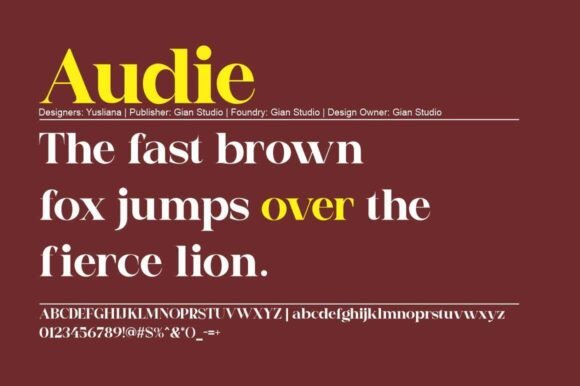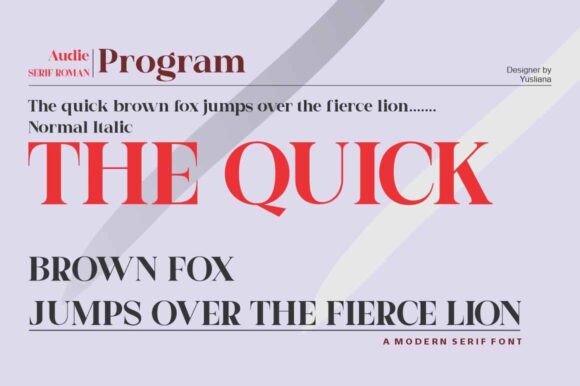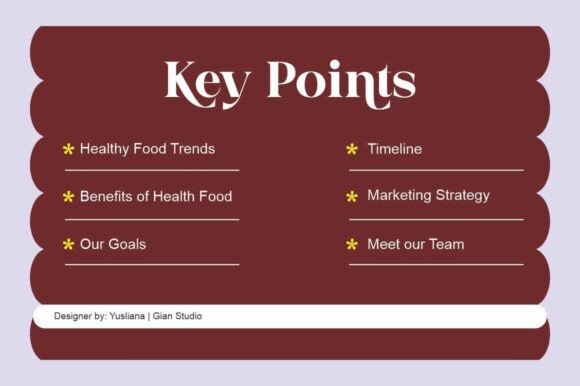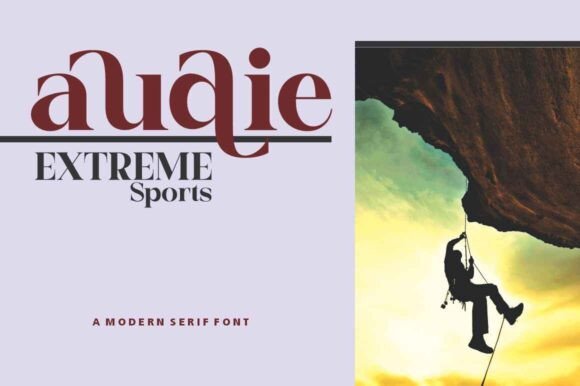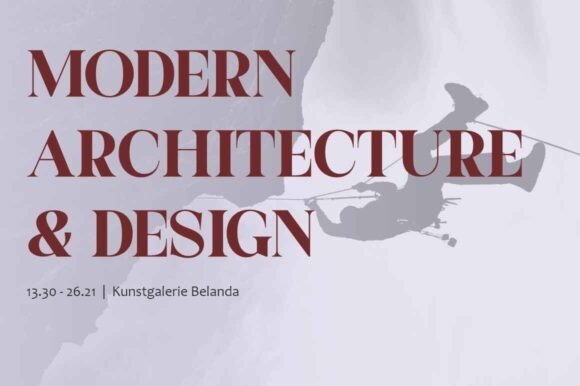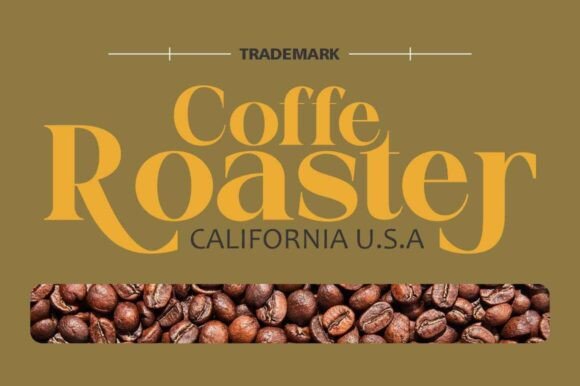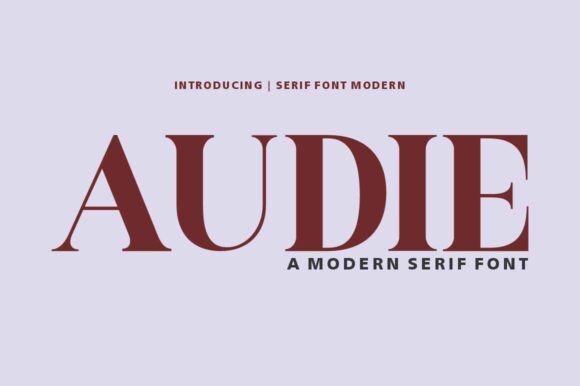
Audie Font: Elevate Your Designs with a Modern Serif Style
In the world of typography, a good font can make all the difference in creating a lasting impression. For designers and crafters looking for a modern serif font that exudes sophistication and elegance, Audie Font is an excellent choice. This versatile font is designed to make a statement, with styles tailored for strong headlines that can elevate your designs to the next level.
What is Audie Font?
Audie Font is a modern serif font that boasts a sleek and contemporary design. Its unique style is perfect for creating striking headlines, making it suitable for a wide range of applications, from eye-catching banners and posters to newspaper and magazine titles, logos, brand identities, and even movie and game titles.
Key Features of Audie Font
- Modern Serif Style: Audie Font features a modern serif design that is both elegant and sophisticated, making it perfect for designs that require a touch of refinement.
- Multiple Styles: The font comes in various styles, allowing you to choose the one that best suits your design needs, from bold and dramatic to elegant and refined.
- High Versatility: Audie Font can be used in a variety of applications, including banners, posters, newspapers, magazines, logos, brand identities, movie titles, and game titles.
Use Cases for Audie Font
Audie Font is an incredibly versatile font that can be used in a wide range of design projects. Here are some examples of how you can use this font to elevate your designs:
- Banners and Posters: Create eye-catching banners and posters with Audie Font’s bold and modern serif style.
- Newspapers and Magazines: Use Audie Font to create striking headlines and titles for newspapers and magazines.
- Logos and Brand Identities: Establish a strong brand identity with Audie Font’s elegant and sophisticated design.
- Movie and Game Titles: Create memorable movie and game titles with Audie Font’s dramatic and attention-grabbing style.
Benefits of Using Audie Font
Using Audie Font in your designs offers several benefits, including:
- Unique and Memorable Designs: Audie Font’s modern serif style ensures that your designs stand out and leave a lasting impression.
- Elegance and Sophistication: The font’s elegant and sophisticated design adds a touch of refinement to your designs.
- Flexibility: Audie Font’s versatility makes it suitable for a wide range of design projects.
- Easy to Read: The font’s clear and legible design ensures that your message is communicated effectively.
Tips for Using Audie Font
To get the most out of Audie Font, here are some tips to keep in mind:
- Experiment with Different Styles: Try out different styles of Audie Font to find the one that best suits your design needs.
- Use it for Headlines: Audie Font is designed for strong headlines, so use it to create attention-grabbing titles.
- Pair it with Other Fonts: Experiment with pairing Audie Font with other fonts to create a unique and visually appealing design.
| Font Name | Audie Font |
In conclusion, Audie Font is a modern serif font that offers a unique and elegant design, making it perfect for designers and crafters looking to elevate their designs. With its versatility, flexibility, and ease of use, Audie Font is an excellent choice for a wide range of design projects. Whether you’re creating banners, posters, logos, or movie titles, Audie Font is sure to make a lasting impression.